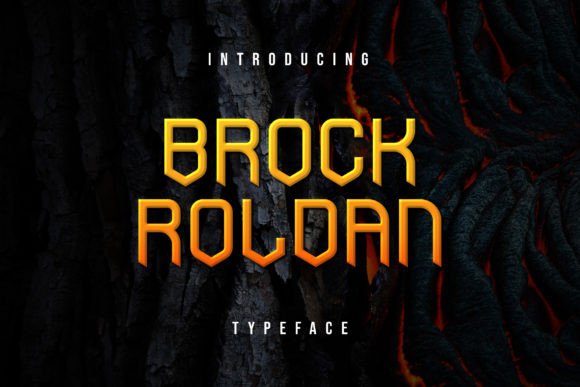
Prepare yourself to be mesmerized by Brock Roldan, a display font that exudes modernity and originality, meticulously crafted by zerologicstudio to cater to your creative desires. This font is not merely a collection of letters; it's an artistic expression waiting to be unleashed upon your designs.
Brock Roldan's sharp, confident strokes demand attention, making it the perfect choice for titles, typography, posters, magazines, brochures, and packaging. Its versatility extends to websites, where it can elevate your online presence with a touch of sophistication.
With Brock Roldan, your designs will radiate coolness and leave a lasting impression on your audience. Its unique and striking style will make your designs stand out from the crowd, ensuring that your message is heard loud and clear.
But Brock Roldan is more than just a visually stunning font; it's an experience. Its smooth curves and sharp angles evoke a sense of excitement and energy, inviting your audience to embark on a journey of visual exploration. Let Brock Roldan be your creative companion, guiding you towards design greatness.
Don't settle for ordinary fonts that blend into the background. Embrace the boldness of Brock Roldan and watch your designs transform into masterpieces. Its strong and sharp presence will command attention, leaving your audience in awe.